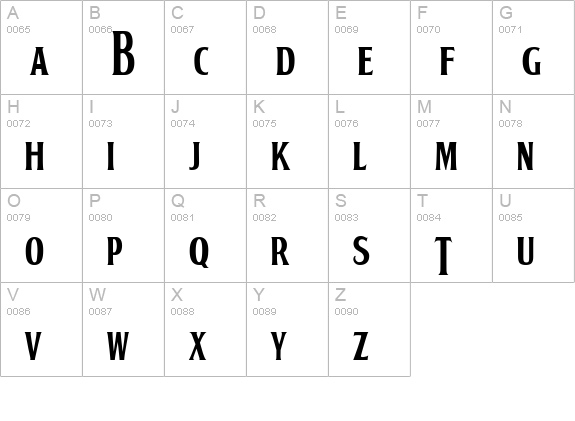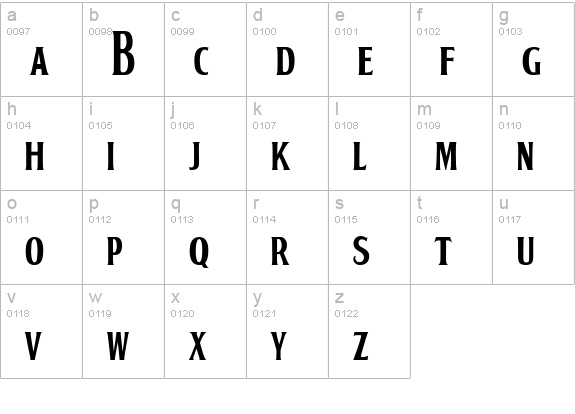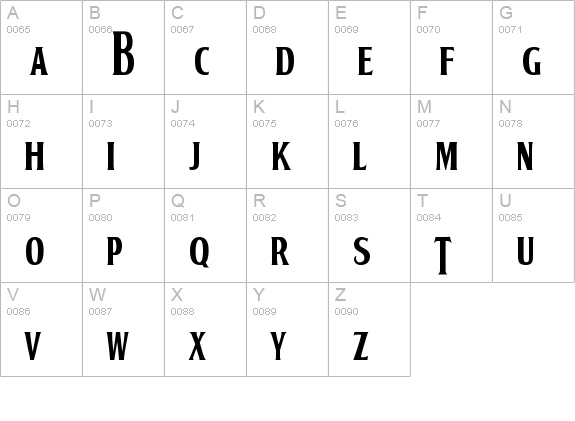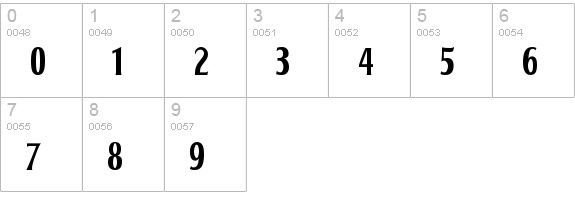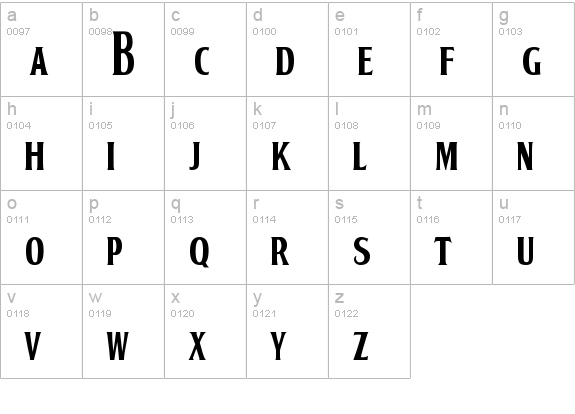
BOOTLE Font Details
BOOTLE font is a stunning typographic creation that effortlessly combines elegance with a touch of modernity. Its sleek and sophisticated curves make it a perfect choice for a wide range of design projects, from branding and logos to invitations and packaging. The clean lines and balanced proportions of BOOTLE font give it a timeless appeal, ensuring that it will stand the test of time and remain a classic choice for years to come. One of the best things about BOOTLE font is that it is available for free download at FontsMarket.com. This means that designers, creatives, and enthusiasts alike can easily access and enjoy this remarkable font without any cost. With its extensive language support, including multiple Latin-based alphabets, BOOTLE font can be used in various design contexts, allowing for ultimate versatility and flexibility. Whether you are working on a professional design project or simply looking to add a touch of elegance to your personal creative endeavors, BOOTLE font is a must-have in your font collection. Its effortless beauty and timeless appeal will elevate any design and make a lasting impression. So why wait? Head over to FontsMarket.com and download BOOTLE font for free to start creating stunning typographic masterpieces today!